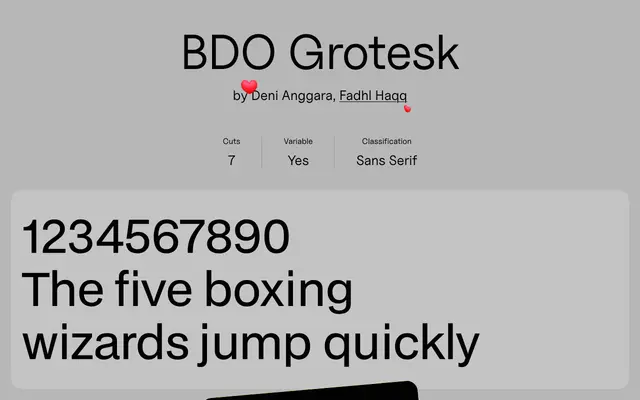
BDO Grotesk
A seven-cut grotesque sans with variable font support, released under an open licence for commercial and personal use.
Designed by Deni Anggara and Fadhl Haqq, BDO Grotesk is a grotesque sans available in seven cuts including a variable font. Released under the SIL Open Font License 1.1, it permits commercial use, modification and redistribution. A functional, accessible choice for projects that need a clean sans with flexibility across weights.
The foundry classifies it as Sans Serif; the name and visual style suggest a grotesque construction typical of contemporary workhorse sans families.